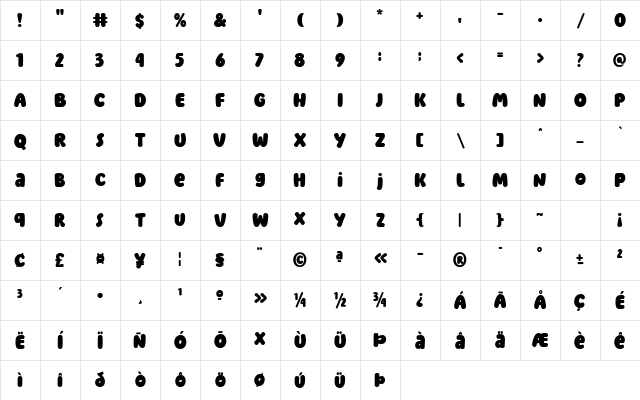
Bubble Garden Bold
Foundry: Four Lines Studio
Designer: Zain Fahroni
Design Context for Bubble Garden
Bubble Garden has an approachable, lighthearted character - its loose, expressive forms are well-suited to children's content, casual branding, and fun-first design.
Font Pairing: Pairs well with a rounded or humanist sans for body copy, maintaining the friendly tone without relying on Bubble Garden to carry extended reading.
Pro Tip: Use Bubble Garden at larger display sizes where its expressive character can land. Pair with a clean, simple sans for body copy to maintain readability.